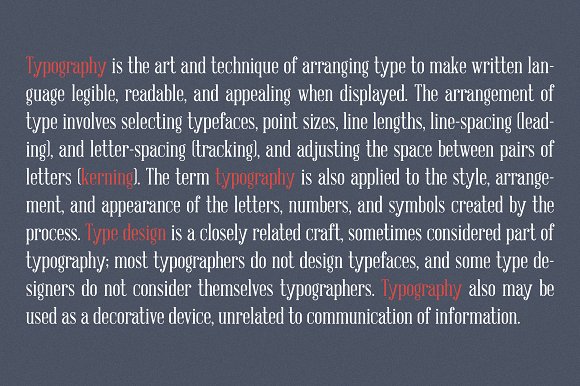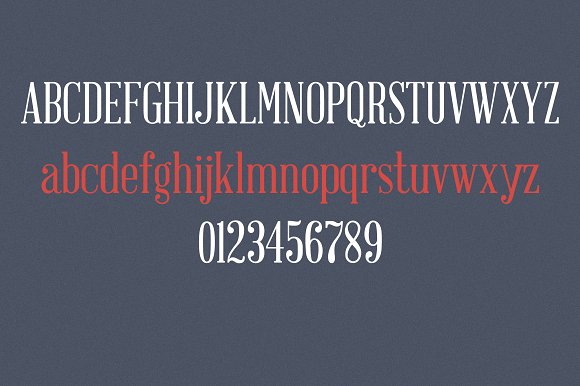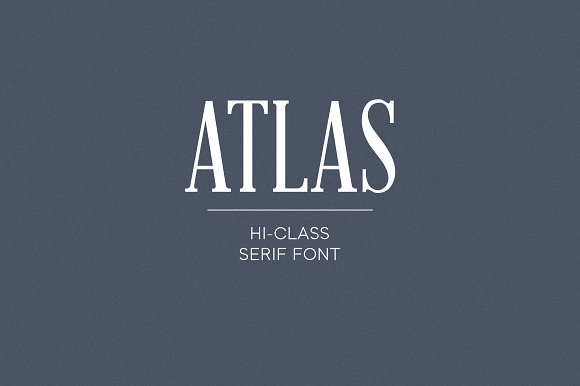
Atlas Serif Font
Atlas is a high class modern serif typeface with a vintage feel. Atlas will look amazing in your text design, brochures, corporate identity, business cards, invitations, headlines, etc.